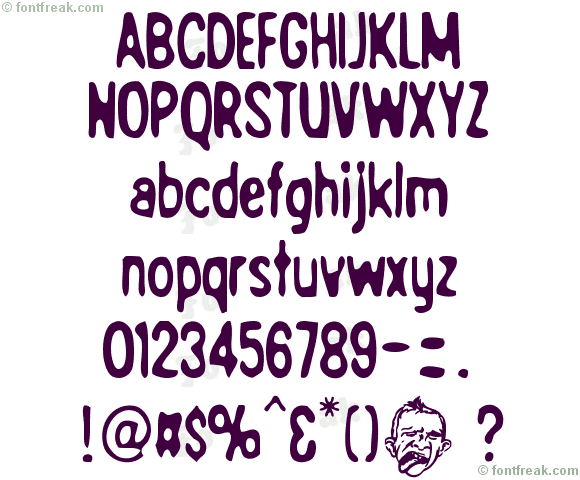
Bad+Quality
About Bad+Quality
Bad+Quality is a unique display typeface crafted by woodcutter Manero. This font embodies a playful and intentionally imperfect aesthetic, making it ideal for projects that require a touch of whimsy and character. As a freeware font, it offers designers an excellent opportunity to incorporate its distinctive style into various creative endeavors.
Visually, Bad+Quality showcases bold, irregular strokes with a variable weight that gives it a hand-drawn appearance. The characters exhibit a lack of uniformity, which adds to their charm and artistic flair. The spacing is deliberately uneven, enhancing the organic feel of the typeface. Decorative elements are minimal but effective, contributing to its casual, laid-back vibe.
This font shines in specific use cases. It is perfect for crafting eye-catching movie posters that demand attention, or for quirky restaurant menus that seek to convey a fun dining experience. Additionally, it works wonderfully for children’s book covers, where its playful nature can capture the imagination of young readers. Graphic designers will find it useful for branding projects that want to stand out, while small business owners can use it for promotional materials that aim to connect with a creative audience.
Targeted at graphic designers, small business owners, and content creators, Bad+Quality invites users to embrace its unique style. Its distinctive look sets it apart from more conventional typefaces, making it a memorable choice for any project. Whether you're looking to make a bold statement or simply add a touch of personality, the Bad+Quality font free download is an excellent resource that offers both versatility and character. Embrace the whimsy and let your creativity flourish with this remarkable typeface.